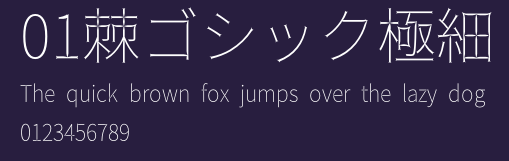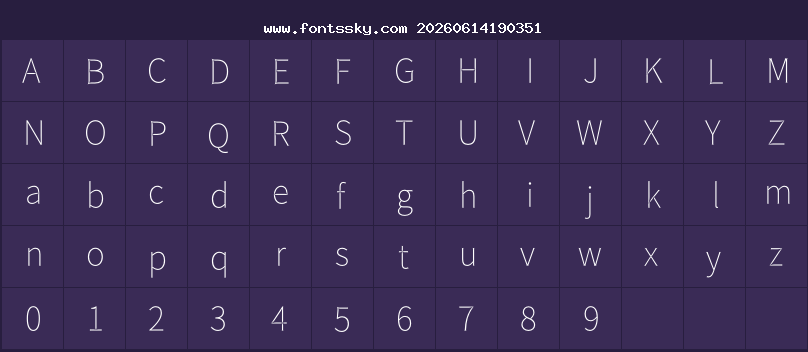
• Font Name: 01棘ゴシック極細
• Full Font Name: 01棘ゴシック極細
• PostScript Name: 01TogeGothic-ExtraLight
• Character Count: 8310
About 01棘ゴシック極細.otf
01棘ゴシック極細.otf is a modern, elegant sans-serif font designed for ultimate readability and visual harmony. Perfect for branding, headlines, web design, and print materials.